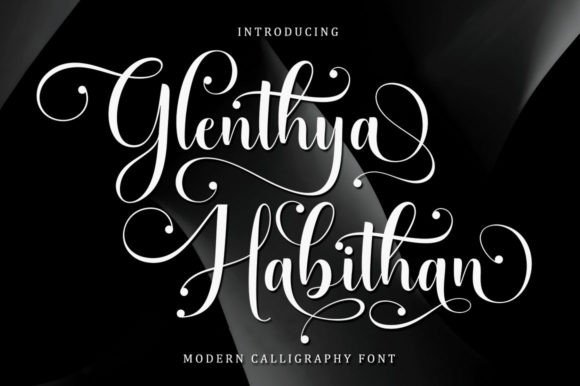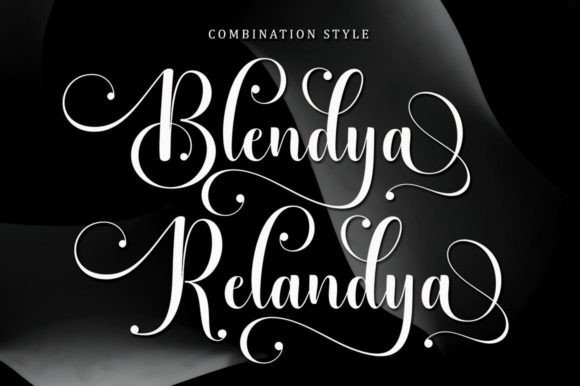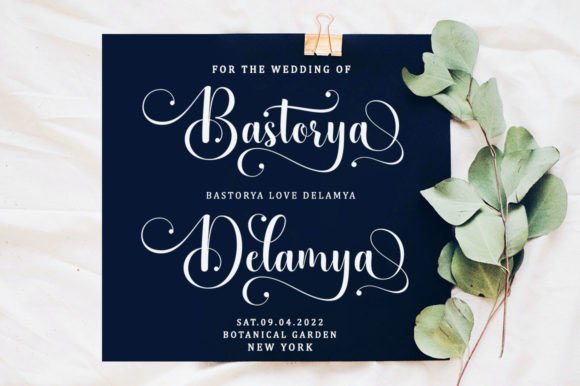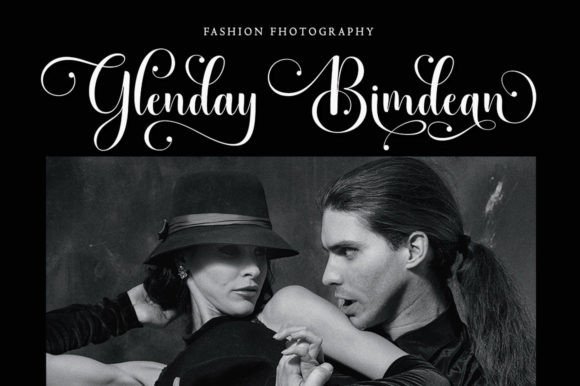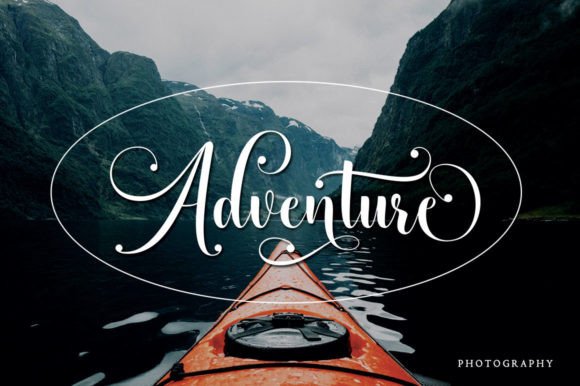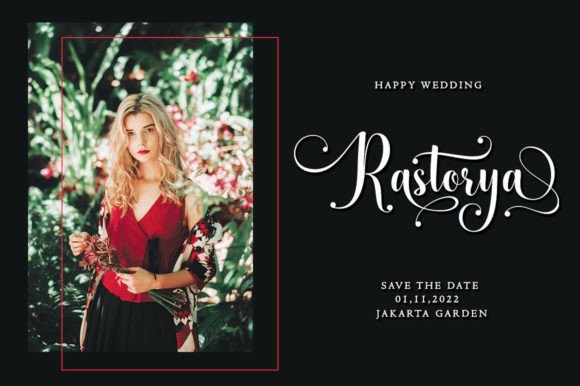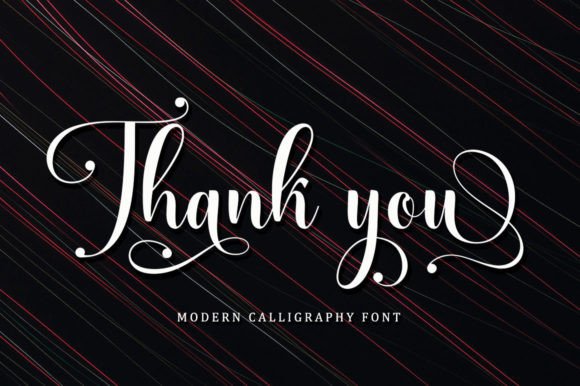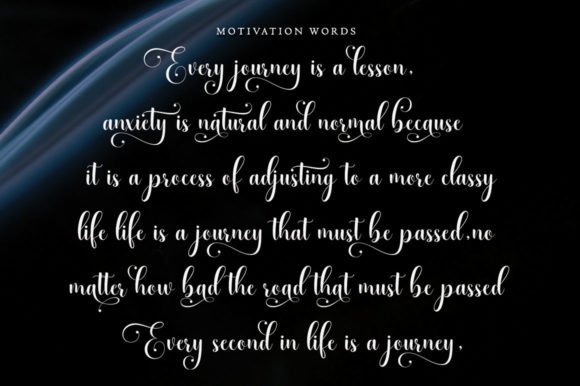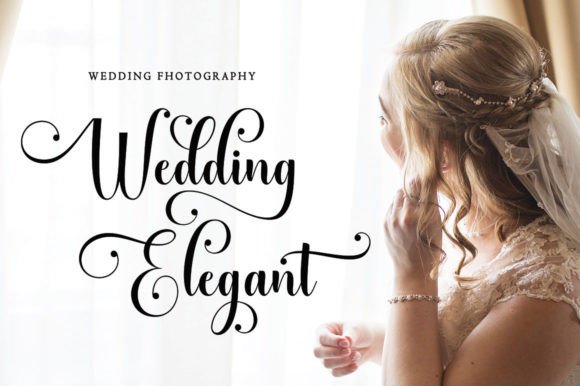
Glenthya Habithan Font
Glenthya Habithan Script Font – Modern and Elegant Typeface
The Glenthya Habithan Script Font is a modern calligraphy typeface that carries a timeless and elegant touch. With its graceful letter connections and flowing strokes, it creates a sophisticated style suitable for both classic and contemporary design projects. Whether you’re designing invitations, magazines, or branding, this font enhances your work with beauty and charm.
A Script Font with Class
The Glenthya Habithan Script Font combines sleek lines with feminine and glamorous details. Its clean style makes it easy to read, while its delicate curves add luxury. Because of this, it adapts beautifully to a wide range of creative contexts, from personal stationery to professional advertising.
Perfect for Weddings and Invitations
One of the most popular uses of the Glenthya Habithan Script Font is in wedding stationery such as invitations, menus, and thank-you cards. Its refined handwritten look makes events feel more elegant and memorable. At the same time, it elevates restaurant menus, product labels, and greeting cards with a classic handwritten touch.
The Glenthya Habithan Script Font adapts well to many uses. From logos, novels, and magazines to social media graphics and product packaging, it brings a refined handwritten feel that balances modern and classic design. As a result, it is equally effective in print and digital formats.
Why Designers Love Glenthya Habithan Font
Designers appreciate the Glenthya Habithan Script Font because it blends luxury with practicality. Its glamorous strokes create sophistication, while its readability ensures usability. This combination makes it a valuable choice for projects that require elegance and clarity.